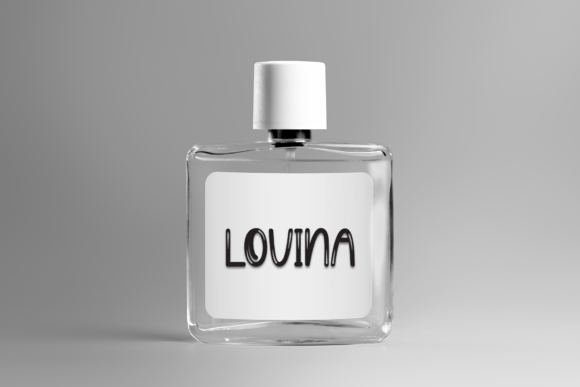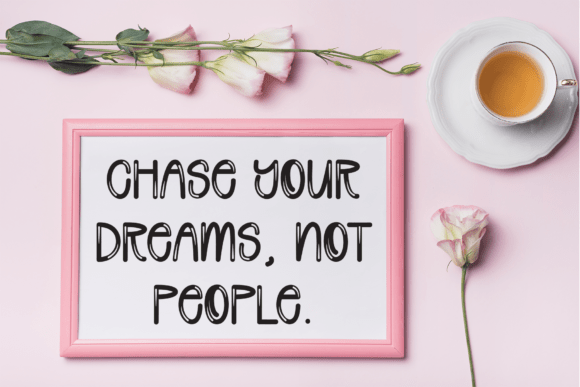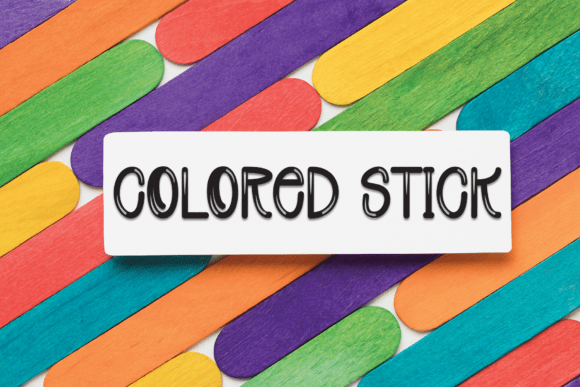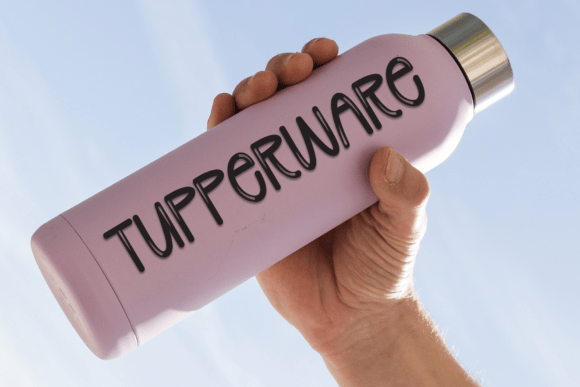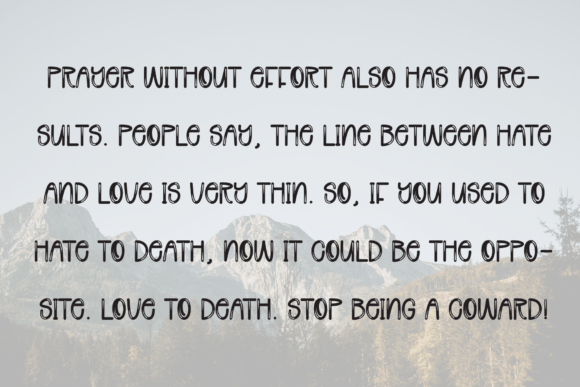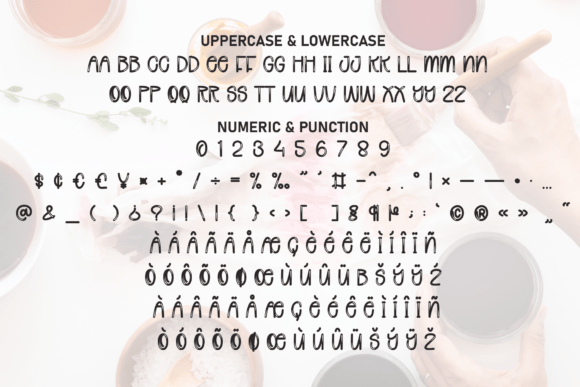
Find Your Summer Vibes with the Perfect Font
Who else remembers those carefree summer days spent lounging by the pool, soaking up the sun, and laughing with friends? As a designer, you’re always on the lookout for the perfect font to capture that same relaxed, playful spirit. That’s where Brushes Homemade Font comes in – a delightful display font that embodies the essence of a sun-kissed summer day.
With its clean lines and easygoing vibe, Brushes Homemade Font is the perfect addition to any summer-themed project. Whether you’re designing posters for a music festival, flyers for a beach party, or a brand identity for a laid-back lifestyle brand, this cheerful typeface is sure to bring a breezy feel to your work. As a designer, you know that the right font can make all the difference in conveying your message and evoking the right emotions in your audience.
- Unique Characteristics: This font features a hand-drawn, homemade look with irregular shapes and unique letterforms, adding a personal touch to designs.
Designer Review: Brushes Homemade Font
Overall, I was pleasantly surprised by the unique charm of Brushes Homemade Font. The font has a quirky, hand-drawn quality that’s reminiscent of traditional calligraphy. ✨ I love the way the letters seem to dance across the page, with each one bearing its own distinct personality.
Here are some of the font’s strengths:
- ✨ Unique and eye-catching design that’s perfect for creative projects
- ✨ Highly customizable, with a wide range of styles and variants to choose from
- ✨ Excellent for adding a touch of whimsy and personality to digital and print projects
- ⚠️ Limited legibility at small font sizes, making it less suitable for body text
- ⚠️ May not be the best choice for formal or professional projects, where a more traditional font is preferred
- ⚠️ Some of the letters may be difficult to read for users with visual impairments
Overall, I’d recommend Brushes Homemade Font for projects where a playful, creative vibe is desired. While it may not be the most practical choice for every project, it’s a great addition to any designer’s toolkit.
Tips for Getting the Most Out of Brushes Homemade Font
Use Brushes Homemade Font for creating a distressed, vintage look in your designs. It’s perfect for posters, flyers, and social media graphics.
Use Brushes Homemade Font for:
- Posters and flyers
- Social media graphics
- Wedding invitations
- Party invitations
What is the recommended font size for optimal readability with the Brushes Homemade Font?
The recommended font size for optimal readability with the Brushes Homemade Font is between 12 and 18 points. This range provides a clear and legible reading experience, while also allowing for a touch of elegance and sophistication in your designs.